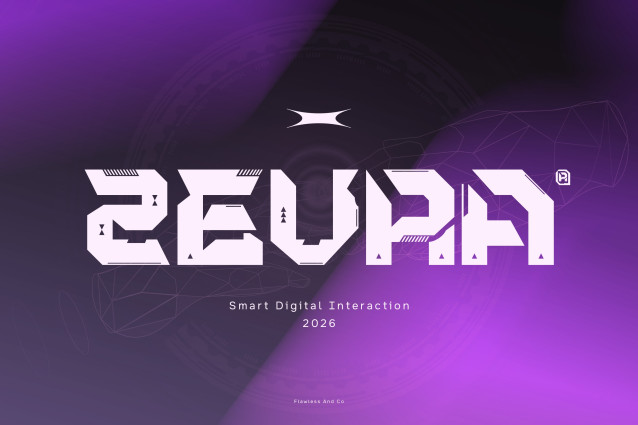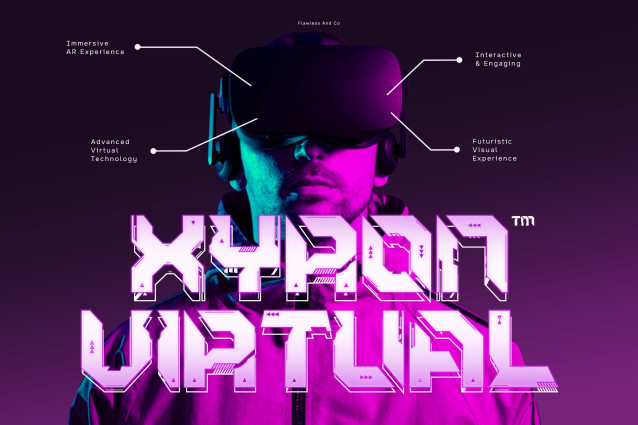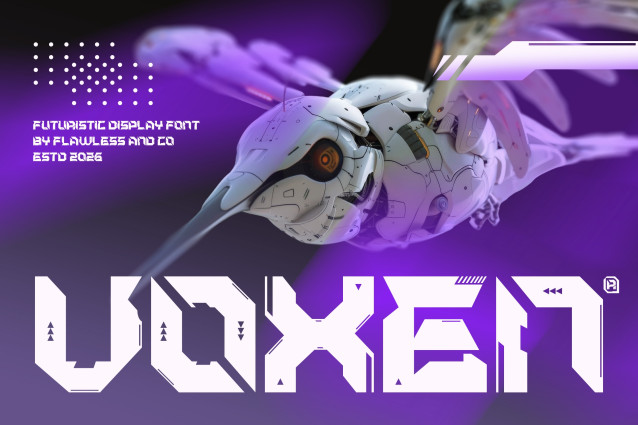
Vexon – Futuristic Display Font
Vexon is a bold futuristic display font designed with sharp geometric shapes, angular cuts, and a high-tech sci-fi aesthetic. Its distinctive letterforms create a powerful visual impact, giving every word a modern, mechanical, and forward-thinking character. With its experimental structure and strong display presence, Vexon is perfect for projects that demand a futuristic edge, from technology and gaming to cyberpunk-inspired branding and digital artwork. Whether you’re creating a striking logo, poster, headline, or promotional graphic, Vexon brings a bold and innovative personality to your designs.